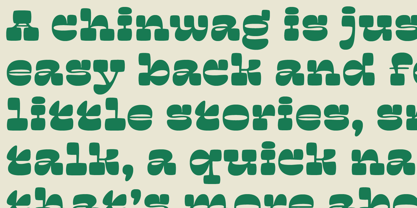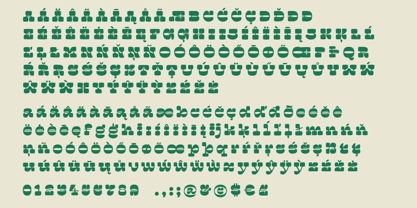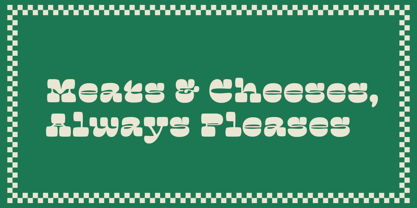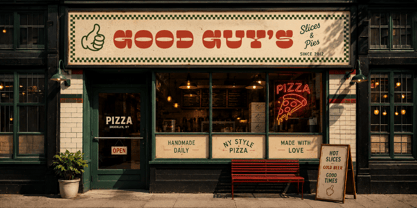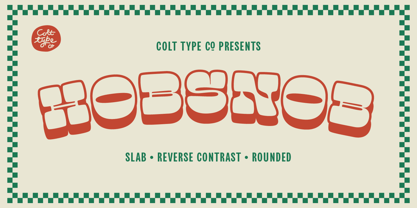
Hob Snob
The Hob Snob Font Family was designed by Adam Greasley and published by wearecolt. Hob Snob contains 1 styles. More about this family
HobSnob is a bold, playful display font that features a charming reverse contrast, evoking a retro poster aesthetic. This vibrant, chunky slab serif is perfect for a variety of applications, including poster design, headlines, pamphlets, greeting cards, product packaging, book covers, logotypes, and album covers. By pushing the boundaries of the traditional rounded slab serif, Hob Snob brings a sense of fun and creativity to your designs, making it an excellent choice for projects that require a lively and engaging typographic presence.